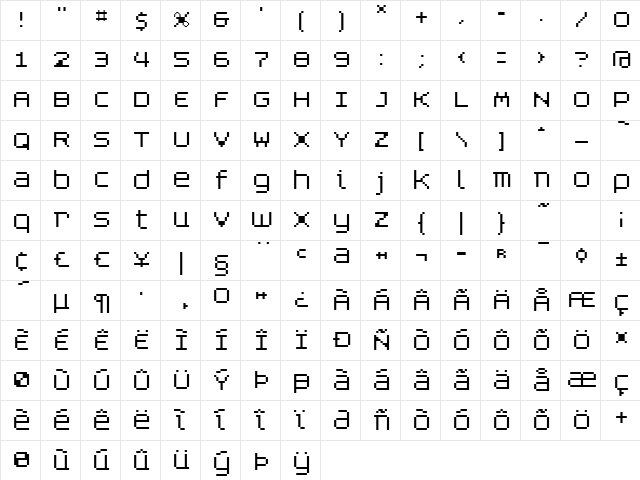
Blackgold Light
Design Context for Blackgold Typeface
Blackgold takes a measured approach to typography — its balanced proportions and neutral character make it a reliable workhorse for both digital and print work. Its slender proportions lend an understated elegance to any composition.